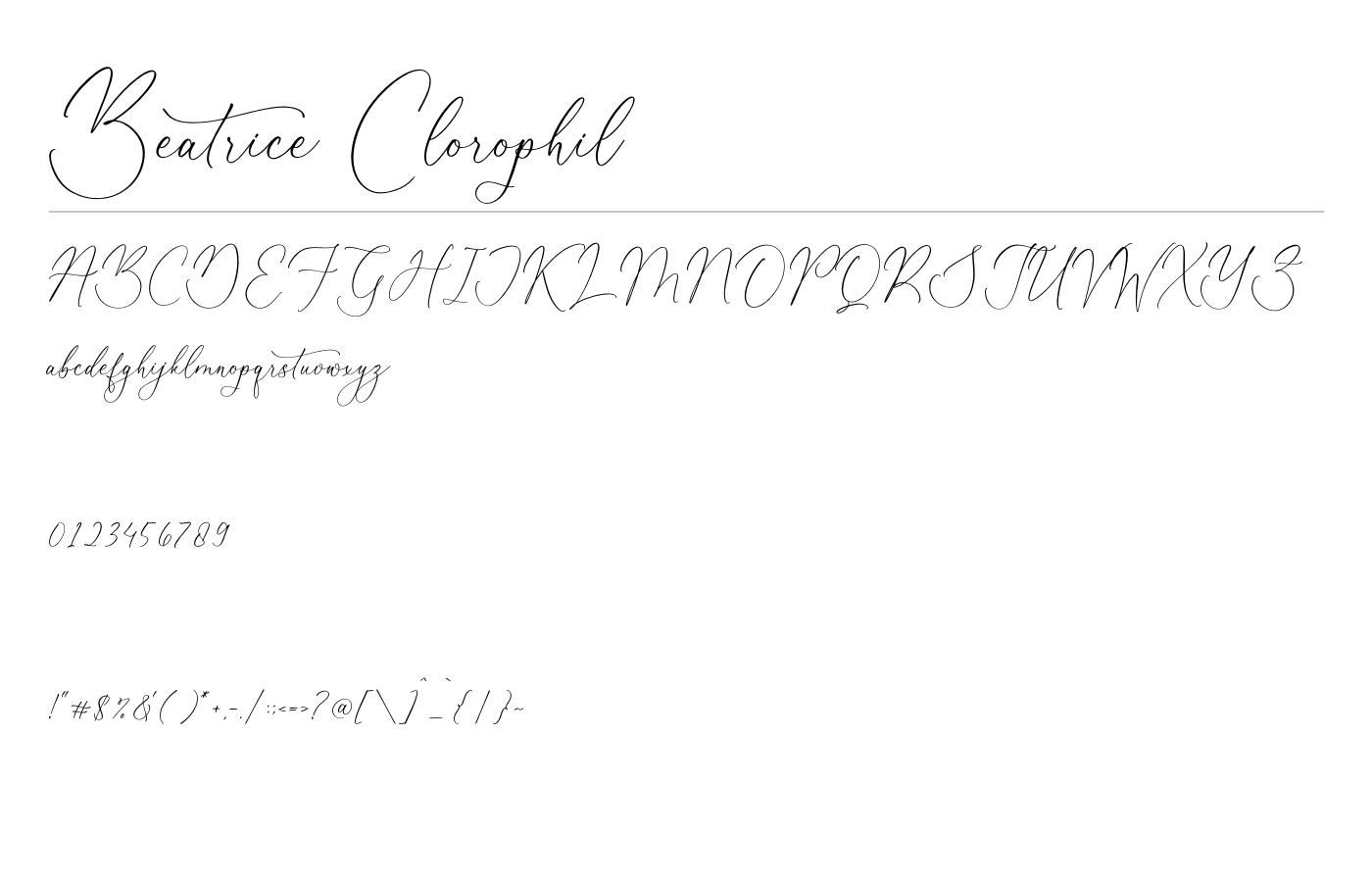
Beatrice Clorophil is a delicate, elegant script font featuring thin, flowing strokes that mimic graceful handwriting. Its tall, narrow letterforms and fine lines give it a refined and sophisticated personality, making it perfect for luxurious branding, wedding invitations, and stylish editorial projects. This font adds a personal touch wherever a light, airy, and romantic feel is desired.
Beatrice Clorophil Font
About Beatrice Clorophil Font